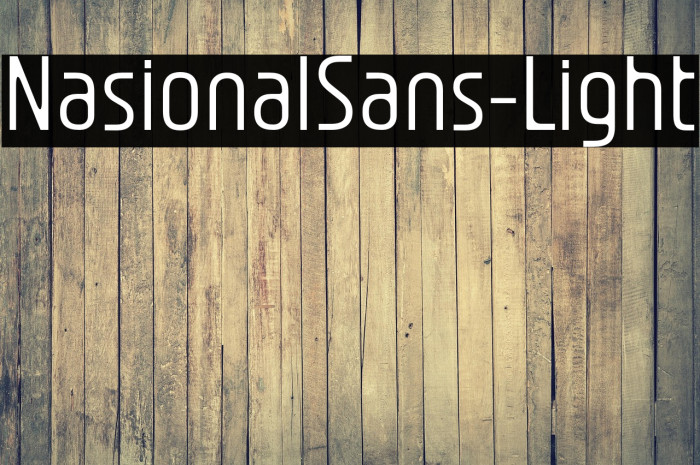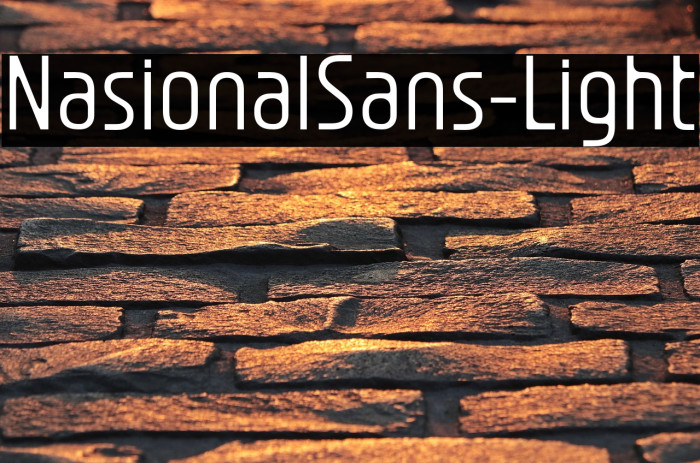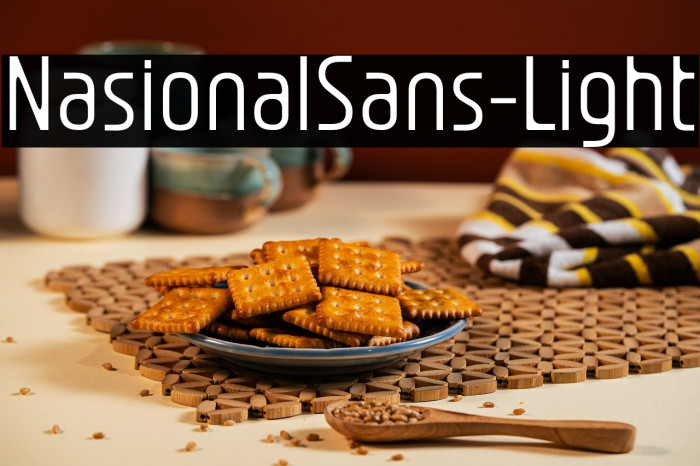
NasionalSans-Light Font
NasionalSans-Light Description
This font features a clean and modern sans-serif design with a light weight, offering a sleek and contemporary appearance. The characters are well-proportioned with a slight geometric influence, providing a balanced and harmonious look. The uppercase and lowercase letters maintain a consistent style, with rounded edges that soften the overall aesthetic. The numerals are clear and legible, making them suitable for various applications. Special characters are included, enhancing the font's versatility. The overall design is minimalistic, making it ideal for projects that require a modern and professional touch.
Proposed ProjectsIdeal for branding, web design, corporate materials, and editorial layouts.